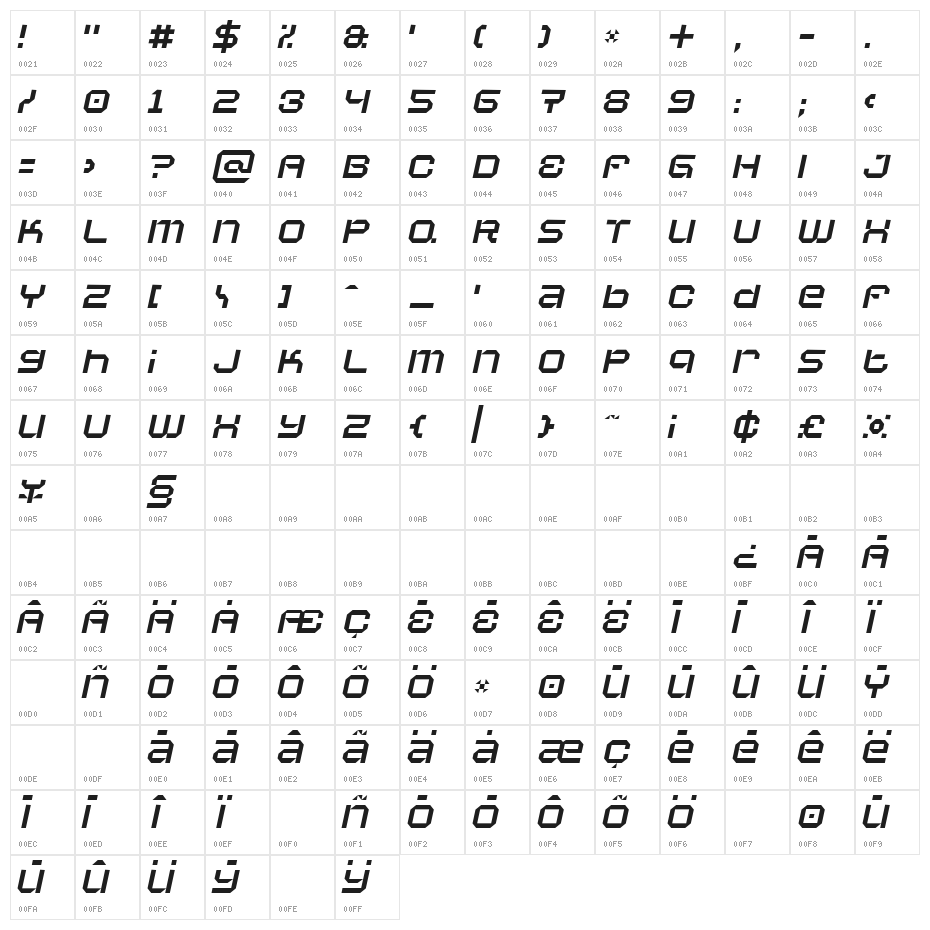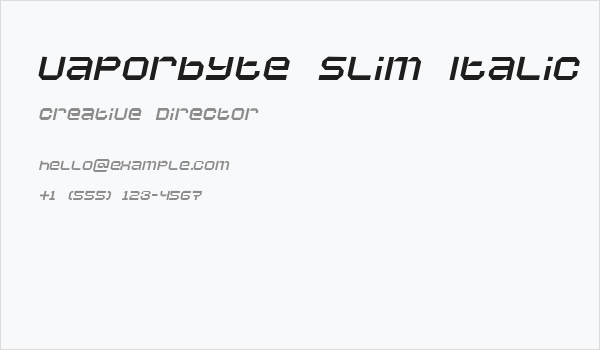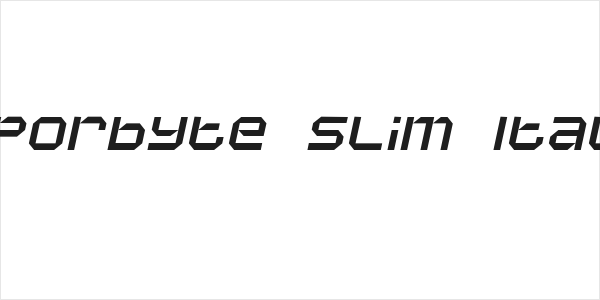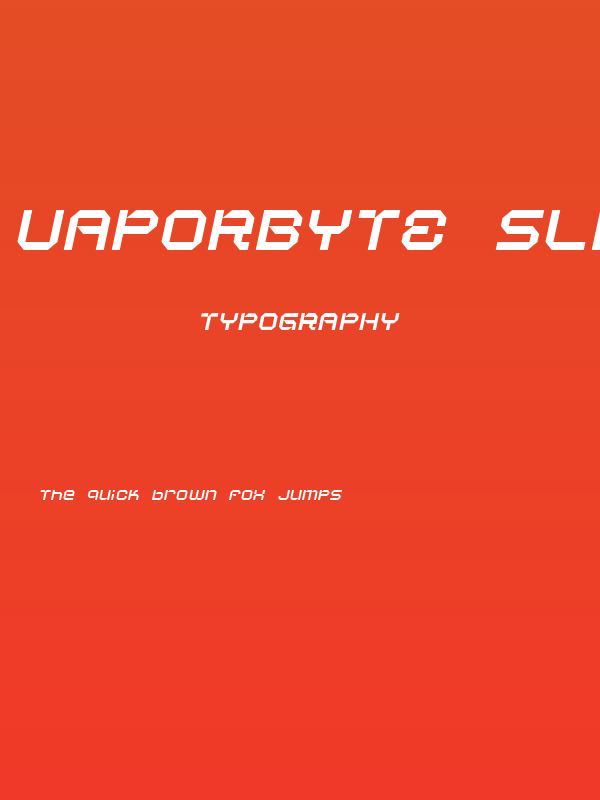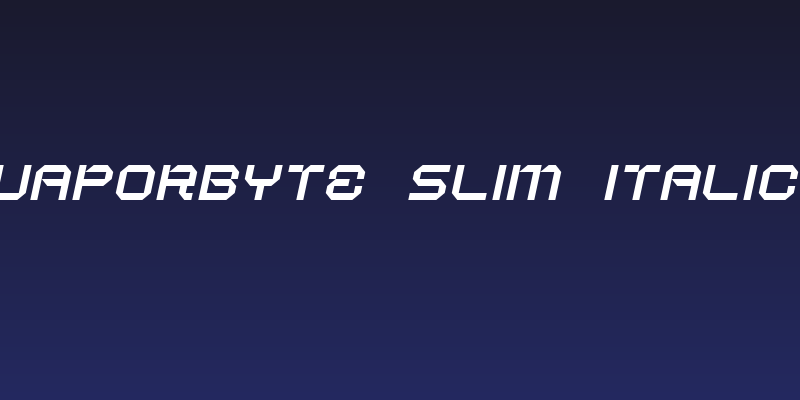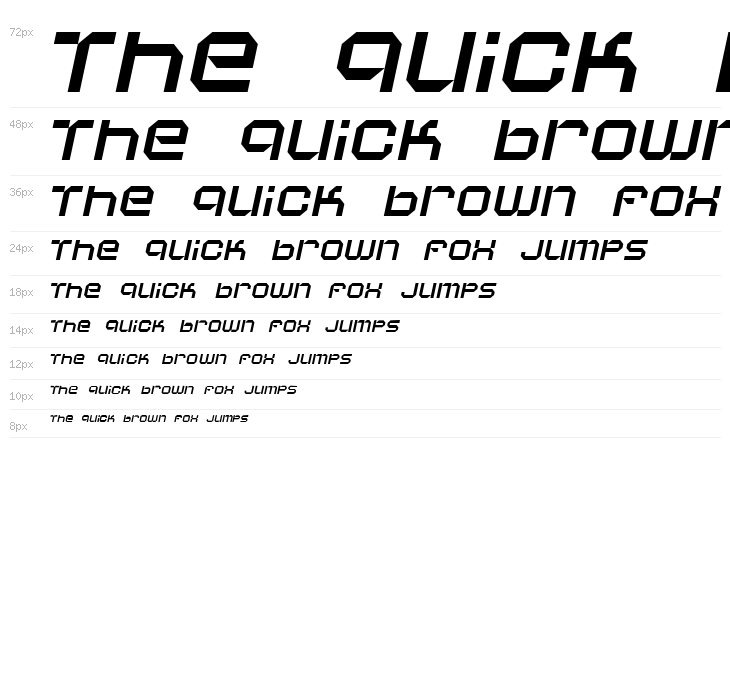
Vaporbyte Slim Italic Font
Vaporbyte Slim Italic Description
This font features a futuristic and angular design, characterized by sharp edges and a sleek, italicized form. The letters are constructed with a geometric precision, giving them a digital and modern appearance. The uppercase and lowercase letters maintain a consistent style, with a slight slant that adds dynamism and movement. The numerals and special characters follow the same design principles, ensuring uniformity across all glyphs. The font's unique style makes it ideal for projects that require a cutting-edge, tech-inspired aesthetic.
| Proposed Projects | Ideal for tech-related branding, video game titles, sci-fi movie posters, and digital media. |